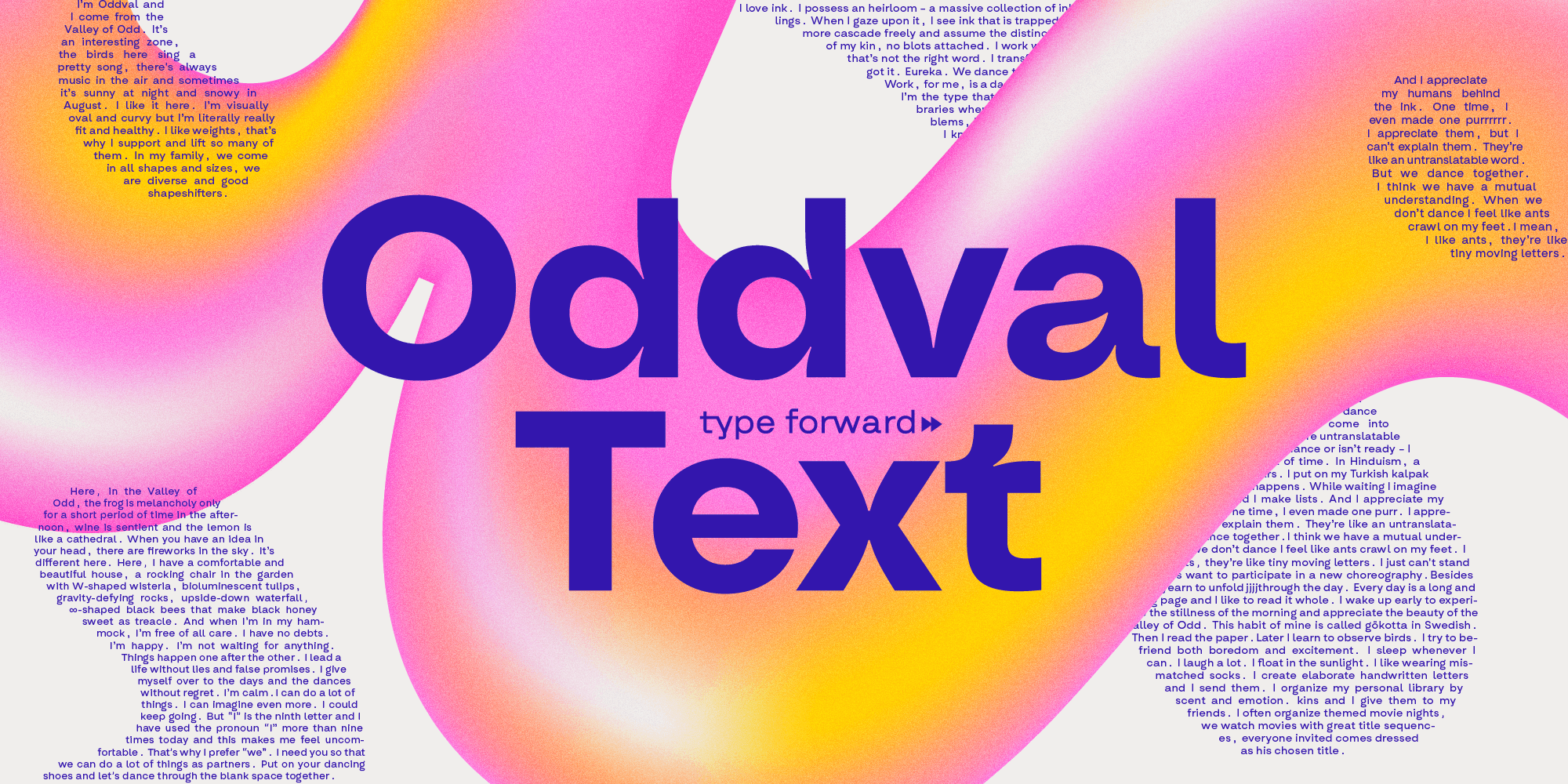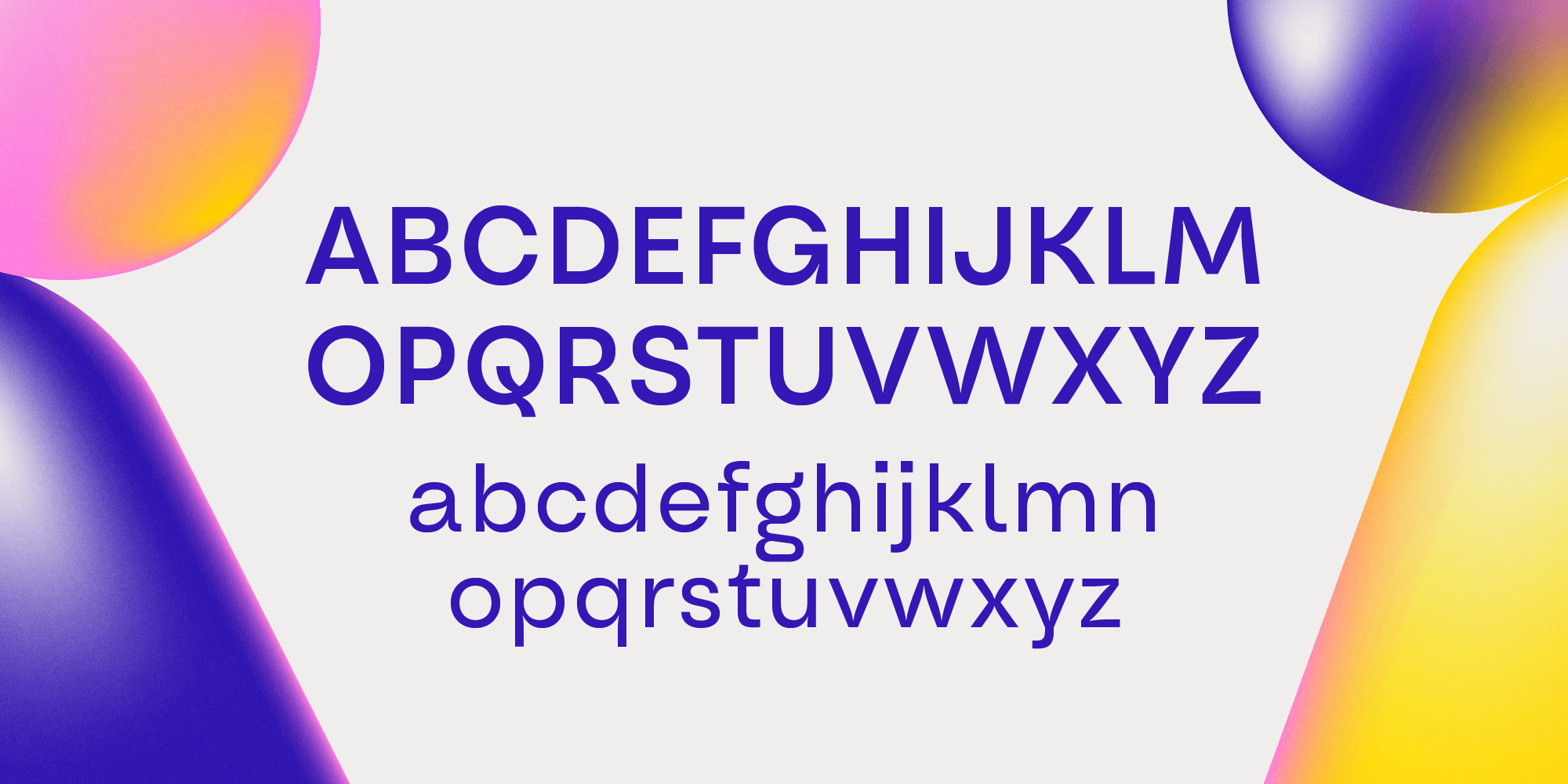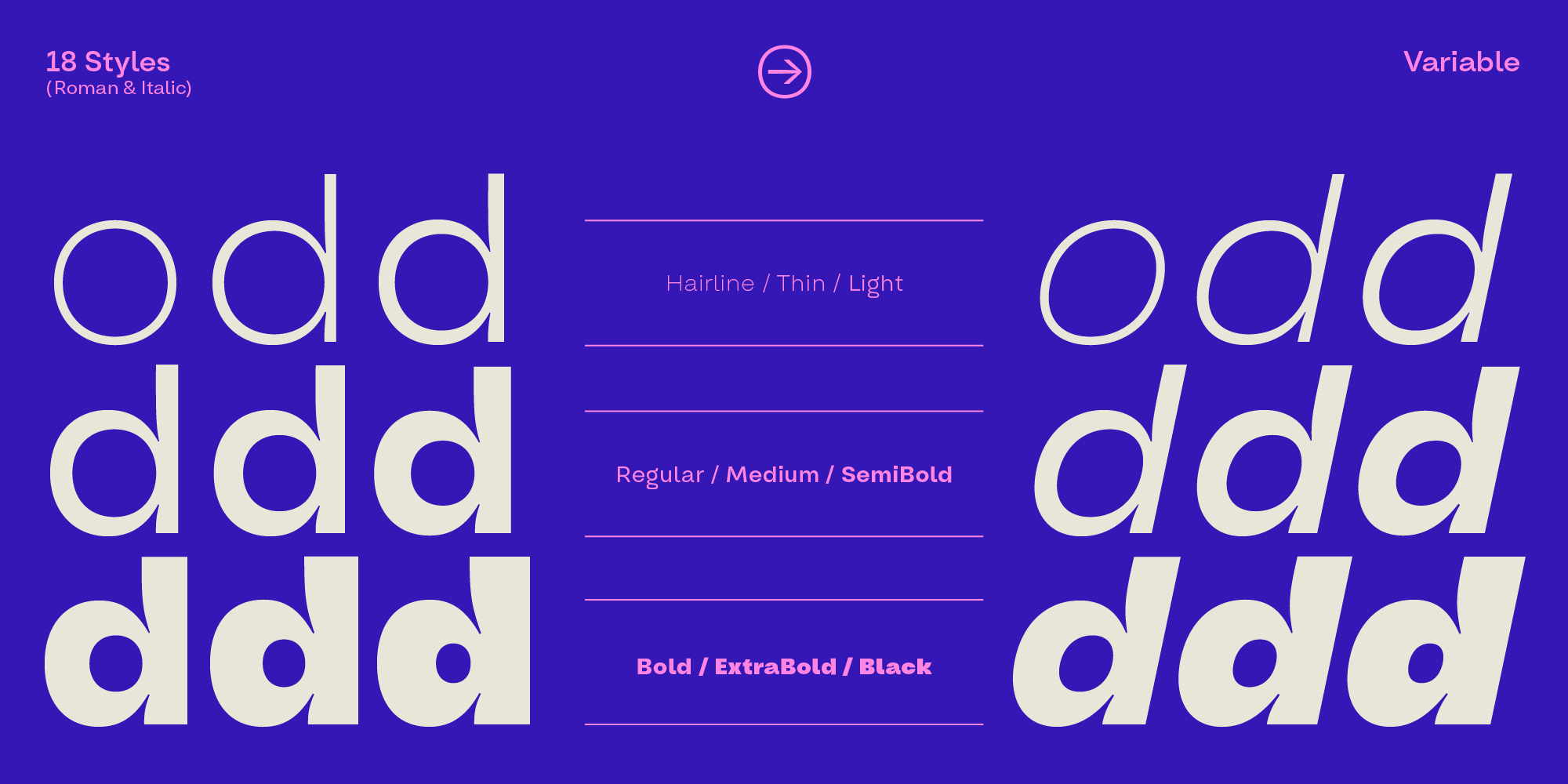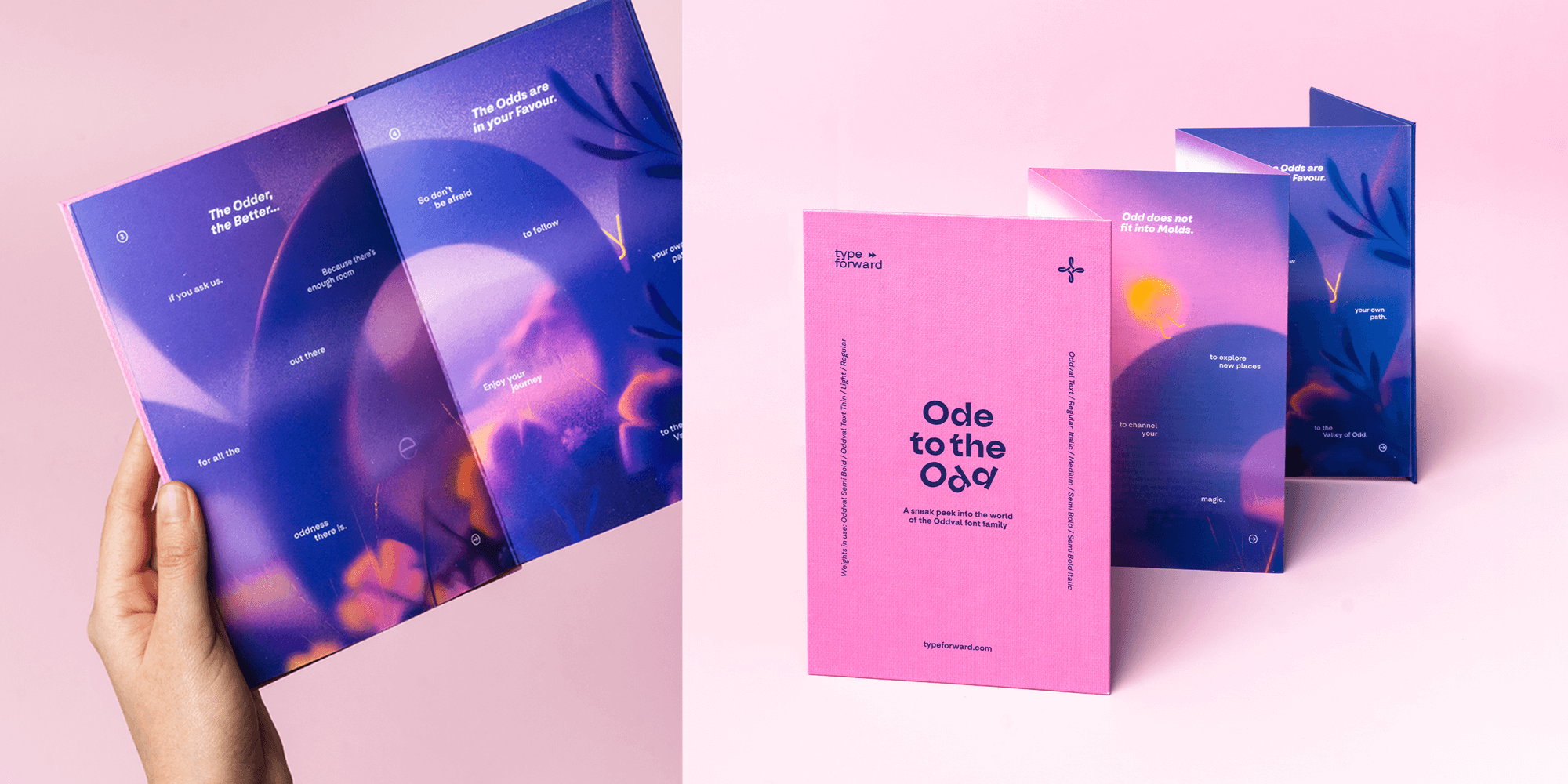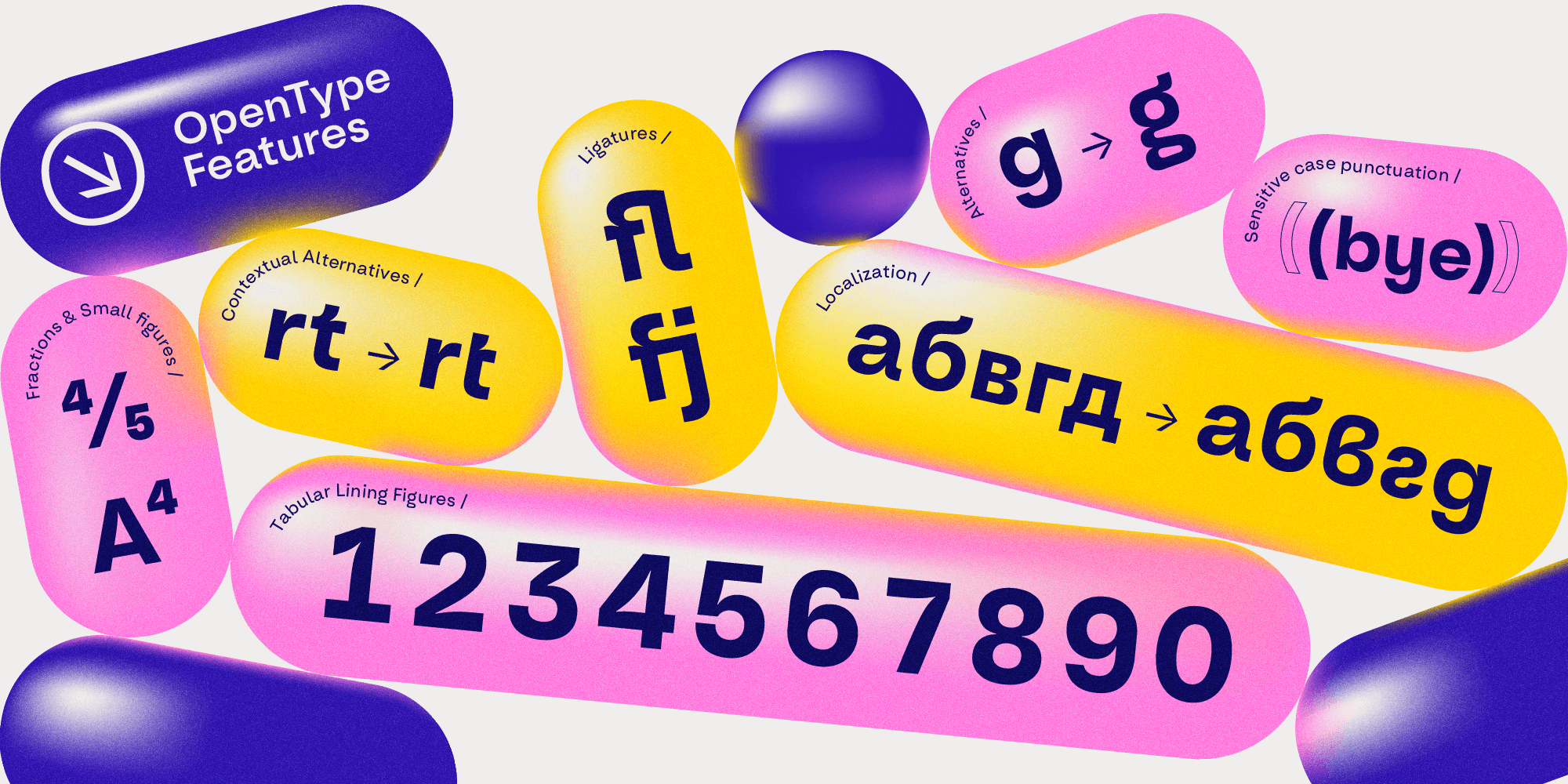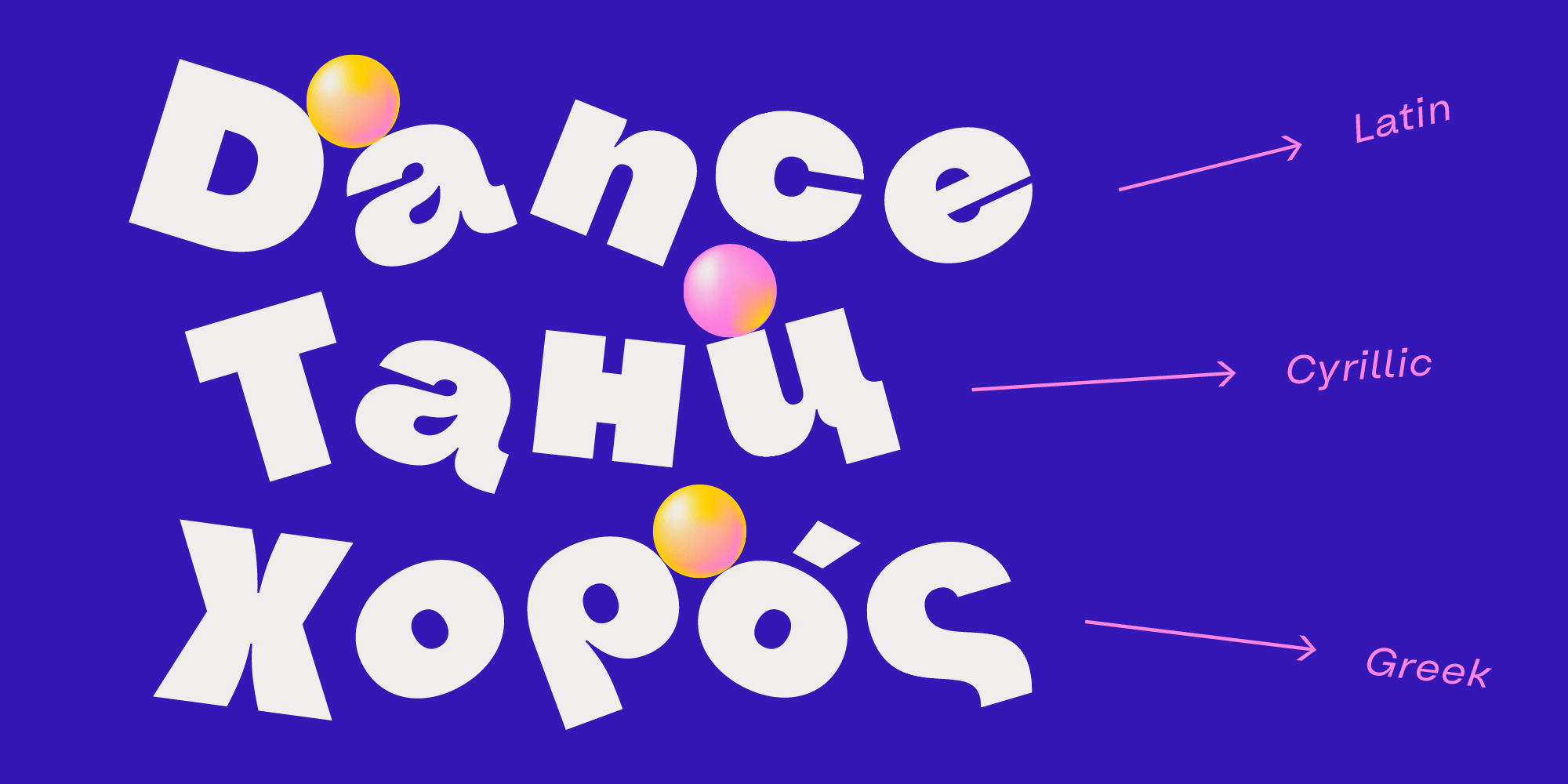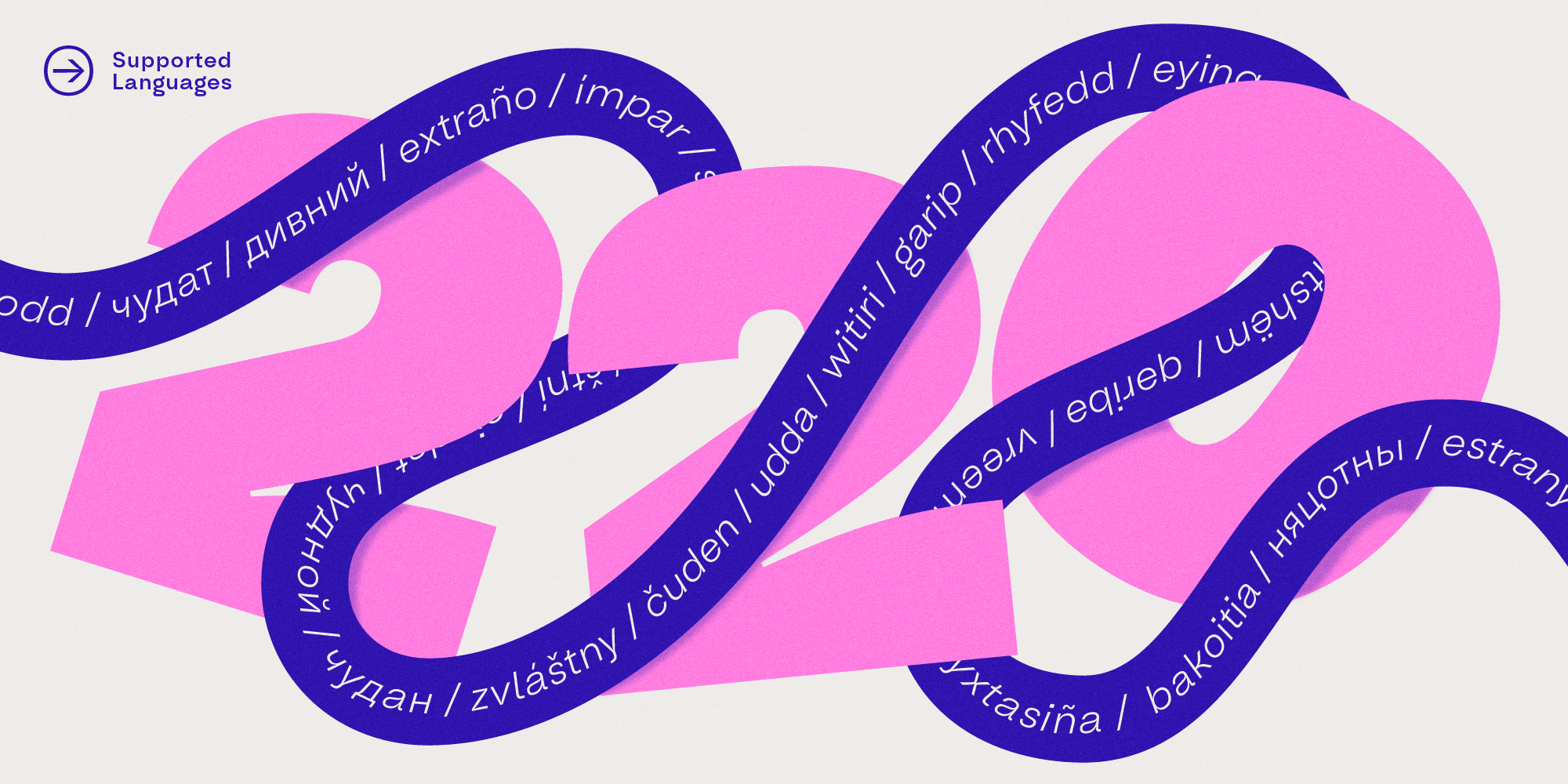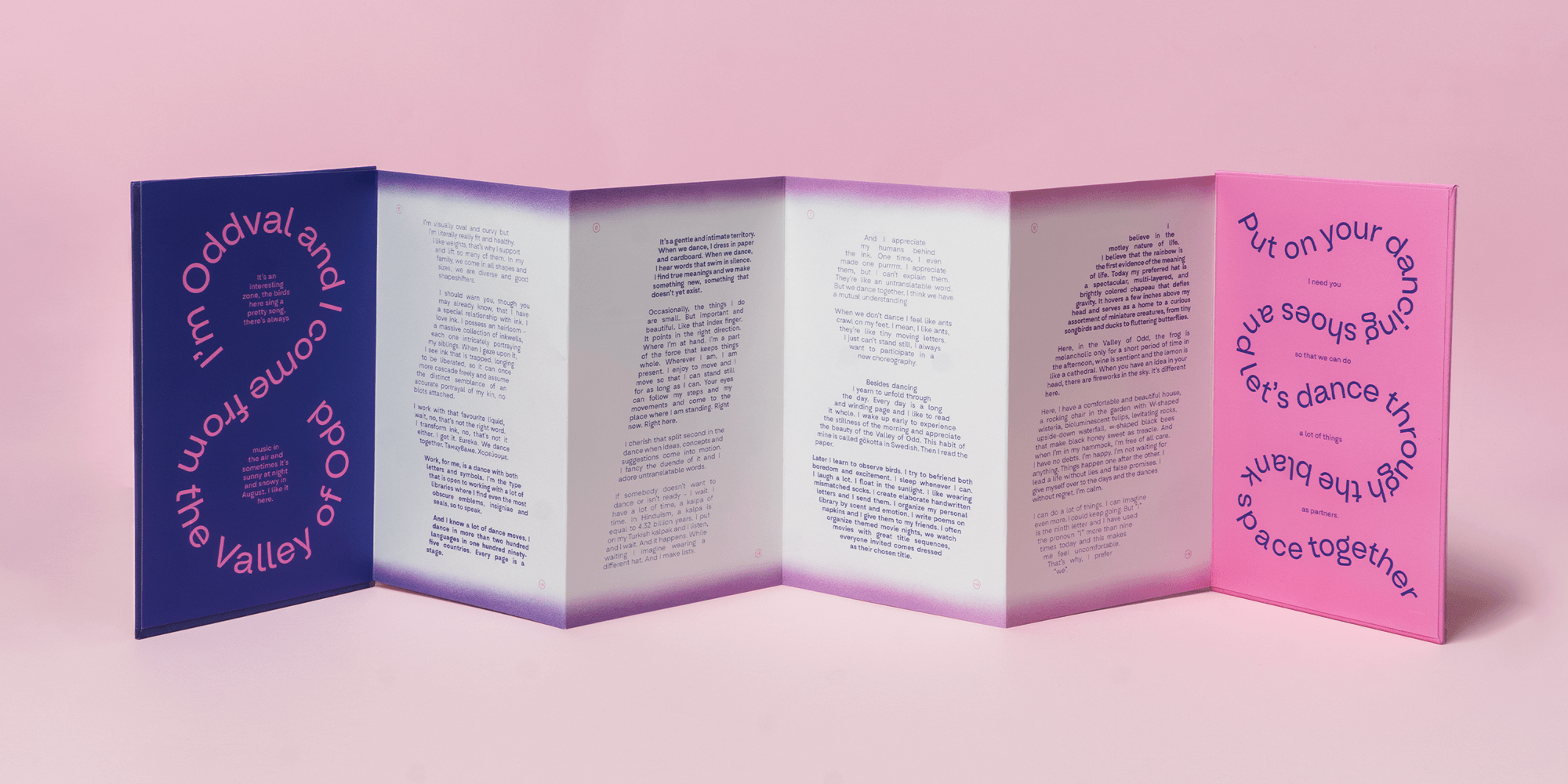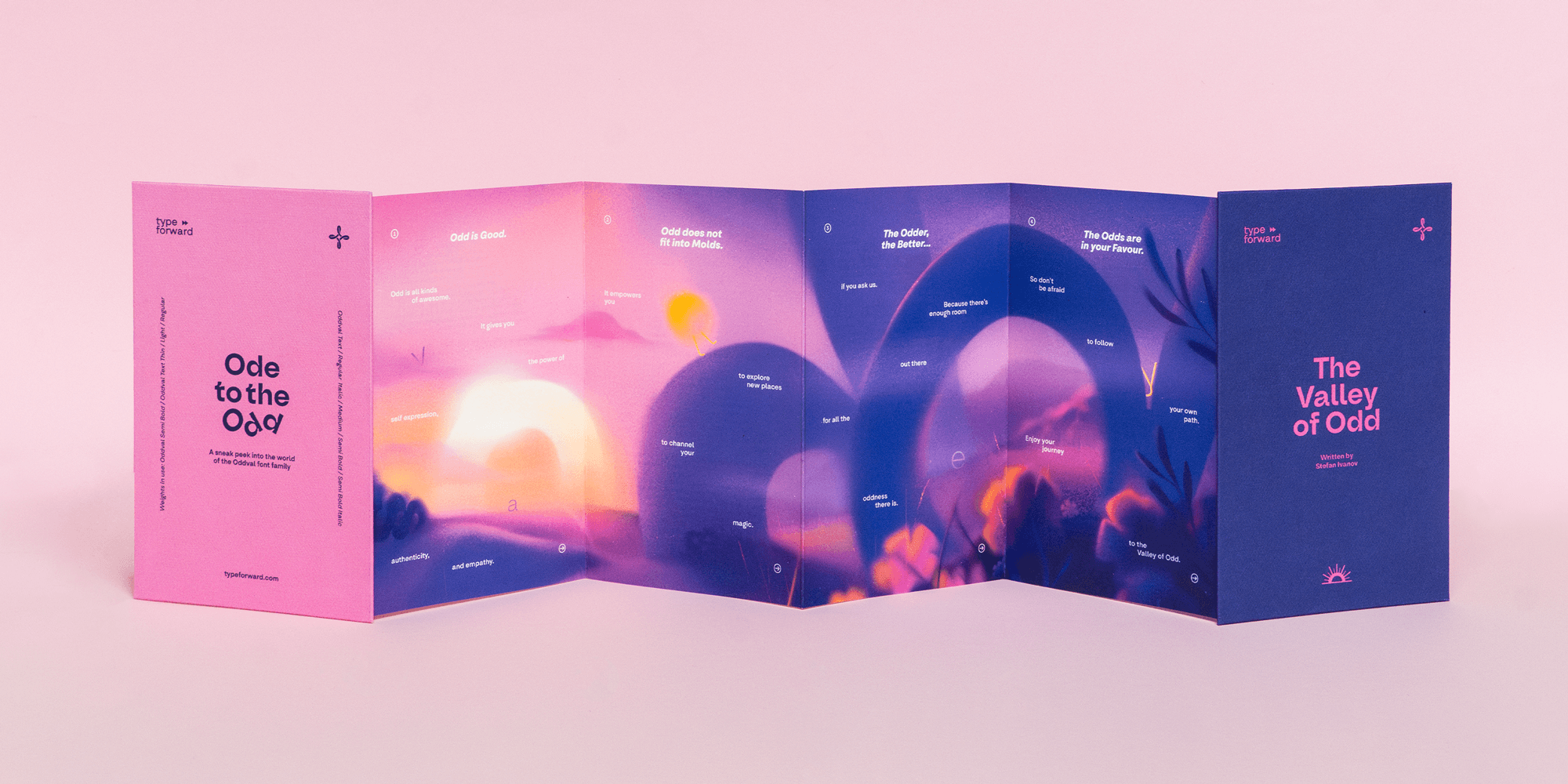
Oddval Text
Text family with Oddval's ink traps, tuned for reading
Designed by Stan Partalev and Mirela Belova
baseline
high x-height
Oddval Text is a geometric sans serif full of personality.
Oddval Text, as an extension of the Oddval font family, is designed to improve readability in smaller sizes while retaining the distinctive aesthetic of the original typeface. The typeface is a response to the user’s needs, balancing functionality with the distinctively “odd” design specific to the family. It’s tailored to meet the modern typographic demands of both print and digital media, offering a versatile solution that respects the legacy of its predecessor.
Design Approach:
In designing Oddval Text, special attention was given to its legibility across a diverse range of media. This involved carefully recalibrating curves and a thoughtful balance of space within each character. These adjustments ensure comfortable reading, whether the typeface is used in traditional print or the dynamic realm of digital screens. The goal was to create a typeface that excels in clarity and ease of reading in every context it’s employed without sacrificing its character.
Distinct Features:
Retaining the foundational elements of the original Oddval, such as the high x-height and minimal stroke contrast, Oddval Text introduces more subtle ink traps. These refinements significantly enhance legibility, particularly in smaller text sizes, without sacrificing the typeface’s inherent character. This delicate balance of features makes Oddval Text exceptionally versatile and equally adept at crafting compelling headlines or rendering a readable body text.
Font Family Composition:
The Oddval Text collection boasts a comprehensive range of 9 weights, extending from Hairline to Heavy, and an italic version complements each weight. All styles can also be found compacted into one variable font format, broadening the scope for expressive typography. This spectrum of styles allows designers to adapt the typeface to various design scenarios.
Technical Specifications:
Designed to cater to a global audience, Oddval Text supports over 220 languages, including Extended Latin, Cyrillic, and Greek scripts. The typeface is also equipped with a rich array of typographic features, including a suite of ligatures, stylistic sets, and contextual alternates. These advanced capabilities make Oddval Text a robust tool for tackling complex typographic challenges in any language.
Usage:
Oddval Text excels in environments that demand heavy text usage, offering clarity and readability that makes it ideal for lengthy editorial content that needs a bit of character. Its distinctive letter shapes also make it a strong contender for impactful headlines, logos, and branding applications. Whether employed in print layouts, web design, or digital interfaces, Oddval Text brings a cohesive aesthetic that complements the broader Oddval family while standing confidently on its own.
Summary:
Oddval Text is a practical typeface for a comprehensive typographic solution. It bridges the gap between readability and stylistic expression, making it suitable for a wide array of applications. From the meticulous details in its design to its wide-ranging functionality, Oddval Text ensures clarity, visual appeal, and versatility in every design context it inhabits.
Typeface Classification:
• Geometric Sans Serif
Best Used For:
• Body Text
• Headlines & Titles
• Digital & Web
• Print Media
• Logos & Identity
• Branding & Editorial
Supported Scripts:
• Latin
• Extended Latin
• Cyrillic
• Greek
OpenType Features
• karyon alternative letters
• lake ss01 – alternative stylistic set
• art --> contextual alternates
• ведър ss02 – oval cyrillic
• affiliate standard ligatures
• уста ss03 – alternative oval cyrillic
• style discretionary ligatures
• 1/2 fractions
• здраве localized forms
• 0 slashed zero
• 1a ordinals
• H2O subscript figures
• 1437
6068
tabular figures
• GROß German Eszett
• (HO) case-sensitive punctuation